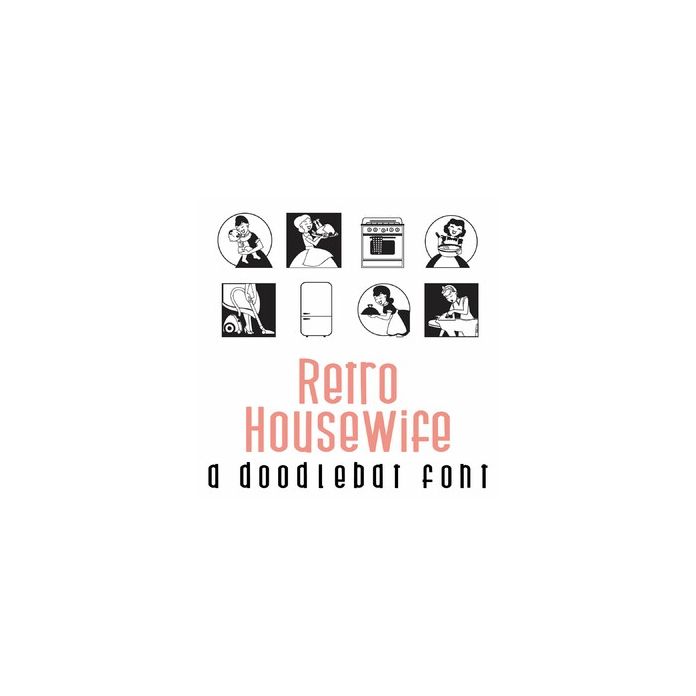
This fun doodlebat font features 26 retro styled housewife images perfect for the holidays, decor, planner stickers, crafts, scrap book pages and more!